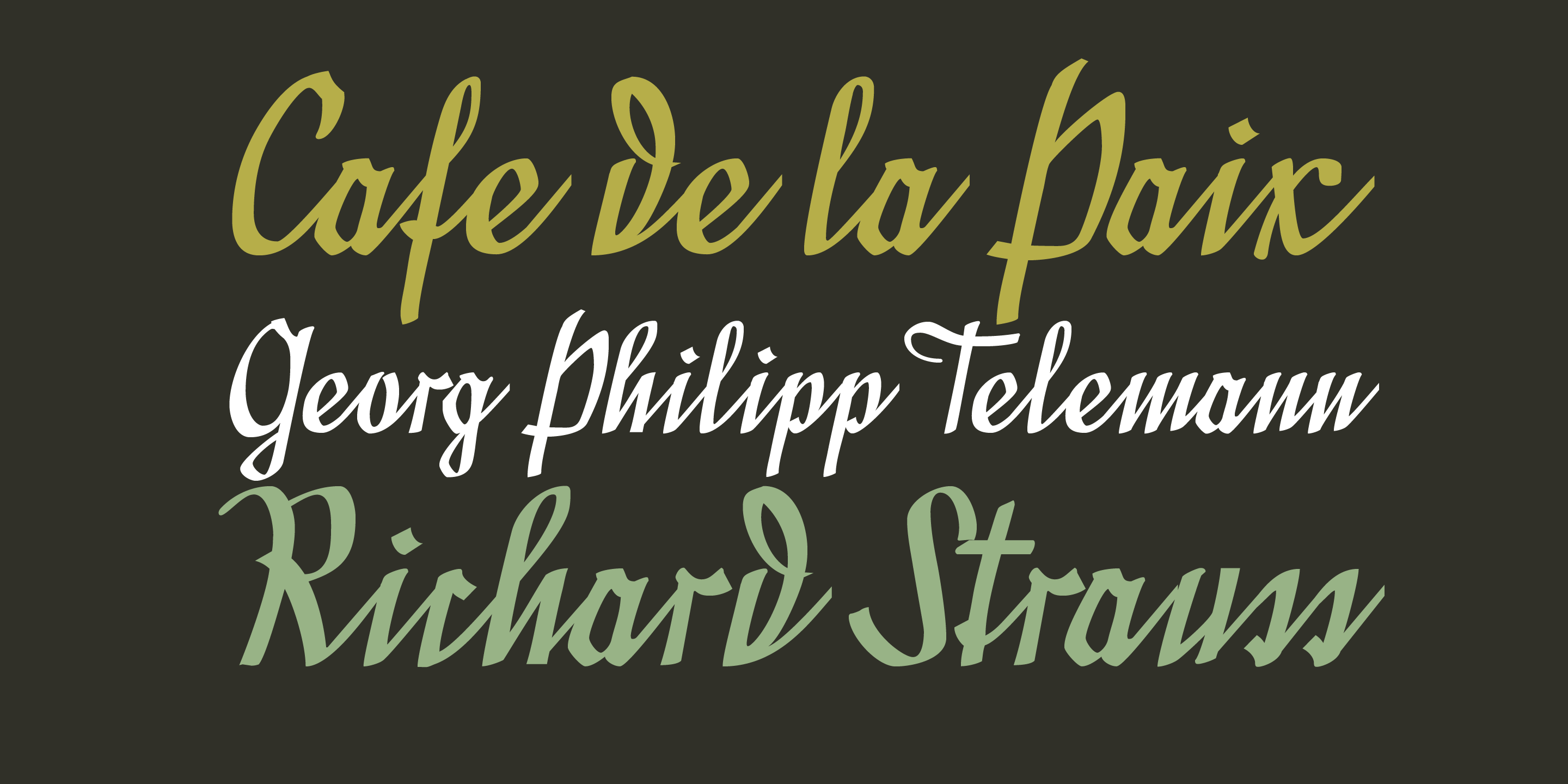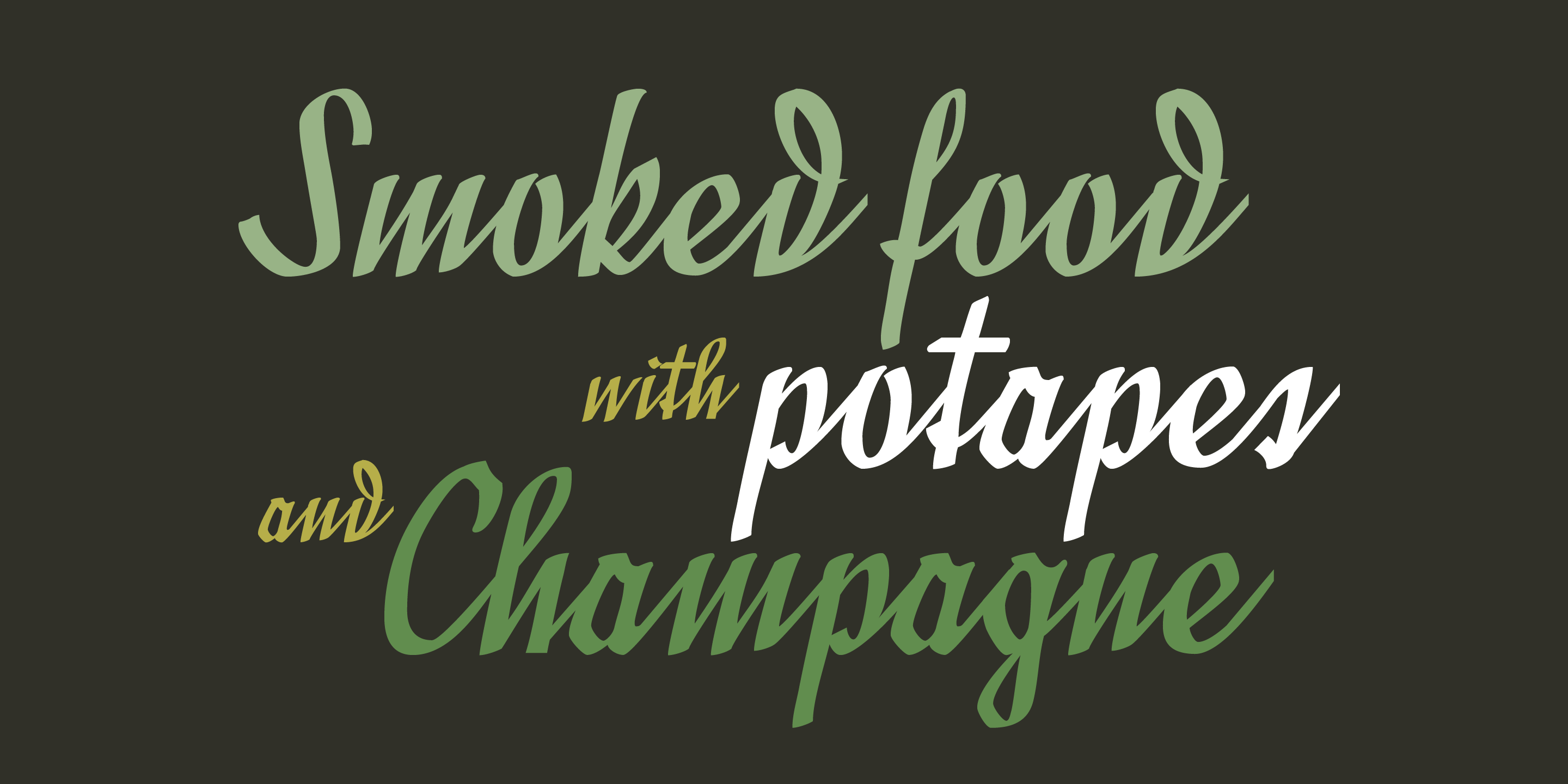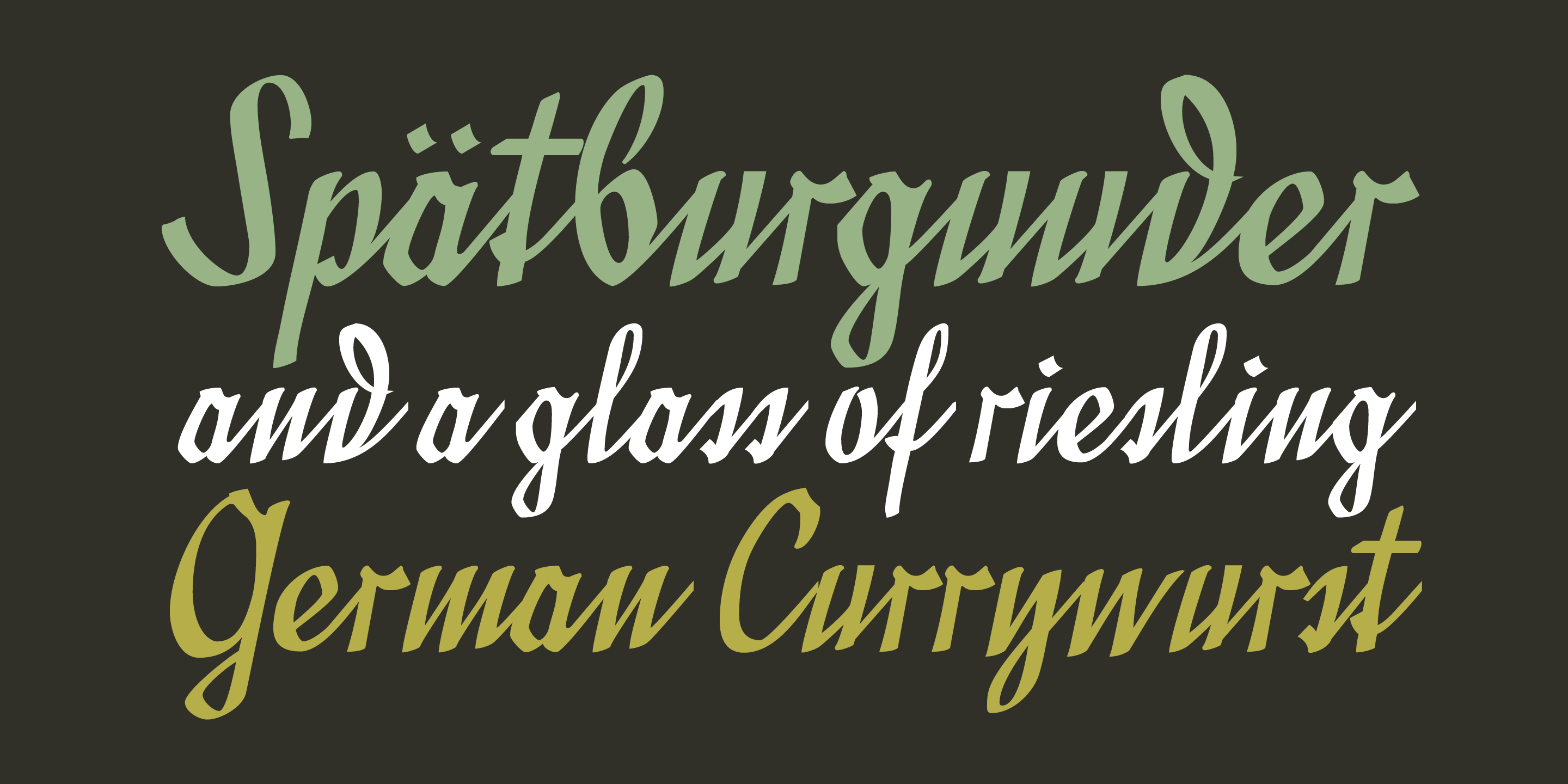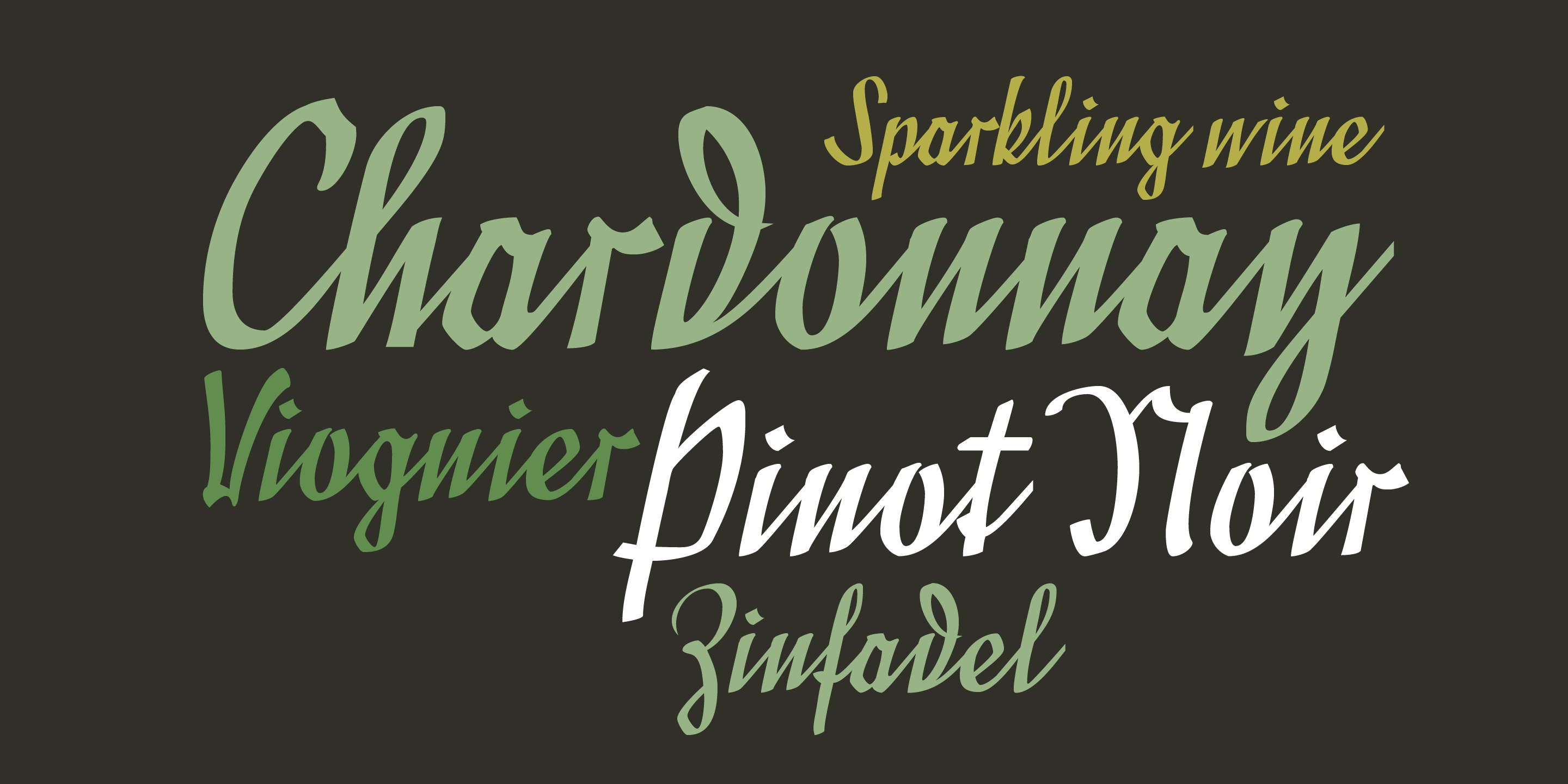
Divina
Divina is a Latinized digitization of one of German calligraphy master Rudolph Koch's typefaces. The original typeface, Kurrent, was designed in 1927 and cut in 1935. Its shapes are a variant of the German script to be used as a model for writing in schools at the time.
This is the first time Koch's rendition of this particular blackletter calligraphy has ever been made into a digital font.